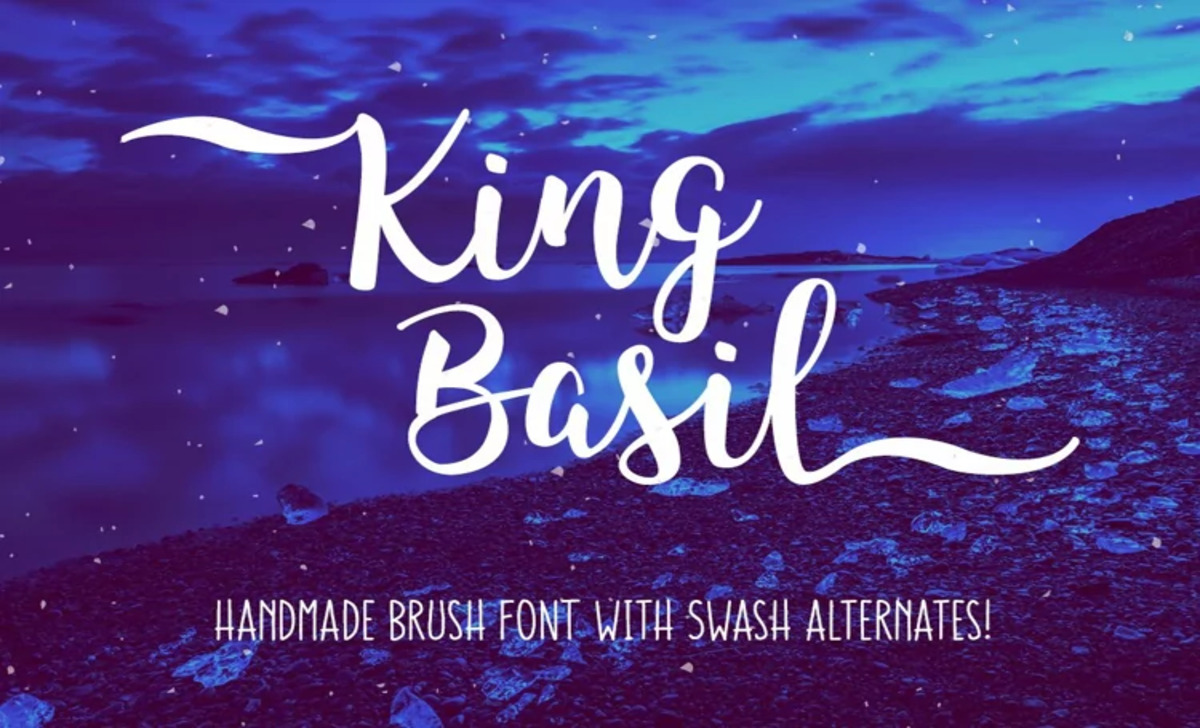
Missy Meyers King Basil Font is a sophisticated script typeface. King Basil was originally named “Spiffy McGee” before being rebranded to reflect its majestic quality.
With its comprehensive set of 421 glyphs, King Basil includes uppercase and lowercase letters, numerals, punctuation, and a wide array of special characters. The font is available in OTF and TTF formats and is free for personal use.
The King Basil Font Family
- King Basil Regular
- King Basil Lite (A simplified version with fewer features)
King Basil Font boasts featuring uppercase and lowercase letters, numerals, punctuation, and 24 ligature sets. It includes 163 accented characters, with entry and exit swash alternates for both uppercase and lowercase letters. Crafted with a Tombow brush pen, the font is meticulously scanned and vectorized, delivering a smooth and elegant appearance.
King Basil Font is perfect for elevating various creative projects with its sophisticated, handcrafted style. Use it to design elegant logos, business cards, and branding materials that convey luxury and creativity. Its ornate script makes it ideal for invitations, stationery, and product packaging.
King Basil Font offers a distinctive blend of handcrafted elegance and versatility. Its extensive set of glyphs and swashes make it an excellent choice for projects needing a refined and artistic touch. Pair King Basil with complementary fonts like Jane Austen for a harmonious design approach.
1.How To Use King Basil Font For Branding?
Utilize King Basil’s elegant script for logos, business cards, and promotional materials to convey sophistication and creativity in your brand identity.
2.How To Customize King Basil Font For A Unique Look?
Use font editing software like Glyphs or FontForge to modify glyphs, adjust swashes, or add custom characters to create a distinct version of King Basil.
3.What Is The History Of King Basil Font?
King Basil, originally named “Spiffy McGee,” was designed by Missy Meyer and features intricate, handcrafted script elements. It was released with a focus on elegance and versatility.
4.How To Create A Logo Using King Basil Font?
Incorporate King Basil’s script into your logo design by pairing it with complementary fonts or icons. Use design software like Adobe Illustrator to refine and position the font elements.
5.What Are The Best Design Projects For King Basil Font?
Ideal for high-impact designs such as branding materials, elegant invitations, luxury product packaging, and stylish event graphics.